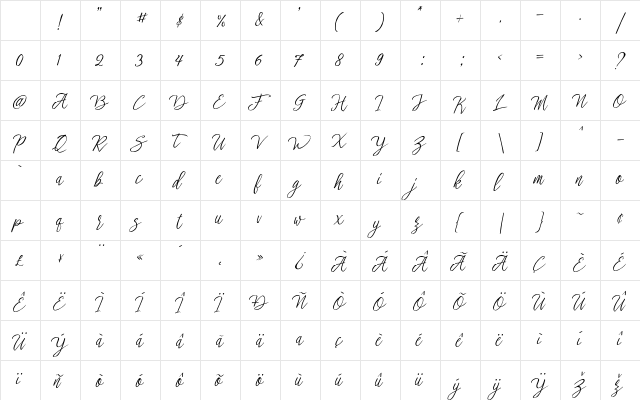
Complete stefhanie typeface free demo Regular glyph index. Displaying only characters natively supported by stefhanie typeface free demo Regular font.
stefhanie typeface free demo is a composed and adaptable typeface that performs quietly and consistently across a wide range of design contexts.
Pro Tip: Use stefhanie typeface free demo in both headline and body roles to test its range before committing to a single application.